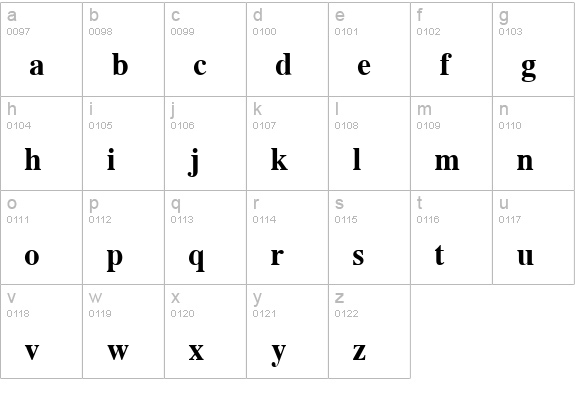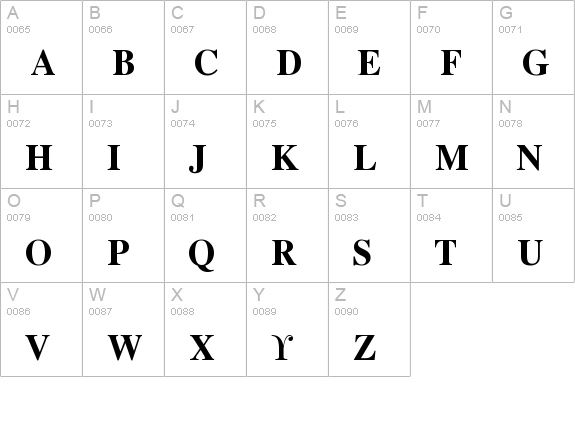
MgMemoriesApla Bold Font Details
MgMemoriesApla Bold is a strong, high-contrast variant in the MgMemoriesApla typeface family \xE2\x80\x94 well suited to headlines, attention-grabbing titles, and strong calls-to-action.
Introducing MgMemoriesApla Bold font, a sleek and modern typeface designed to make a lasting impression. This bold and striking font is perfect for creating eye-catching titles, headers, and logos that demand attention. With its clean lines and distinct style, MgMemoriesApla Bold exudes confidence and sophistication. But the best part? MgMemoriesApla Bold is available for free download at FontsMarket.com. This means you can elevate your design projects without breaking the bank. Whether you're working on a professional presentation, a personal project, or anything in between, MgMemoriesApla Bold is the perfect choice to make your text stand out. Download MgMemoriesApla Bold today and let your creativity shine!